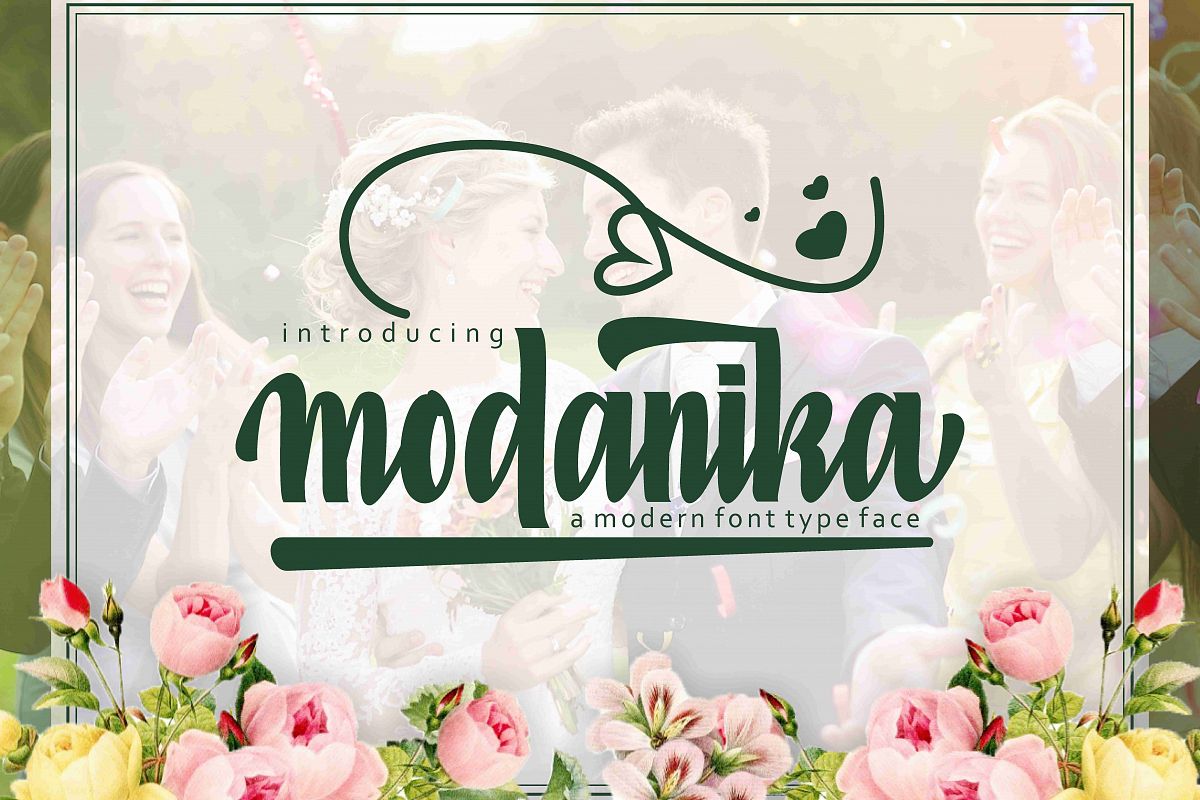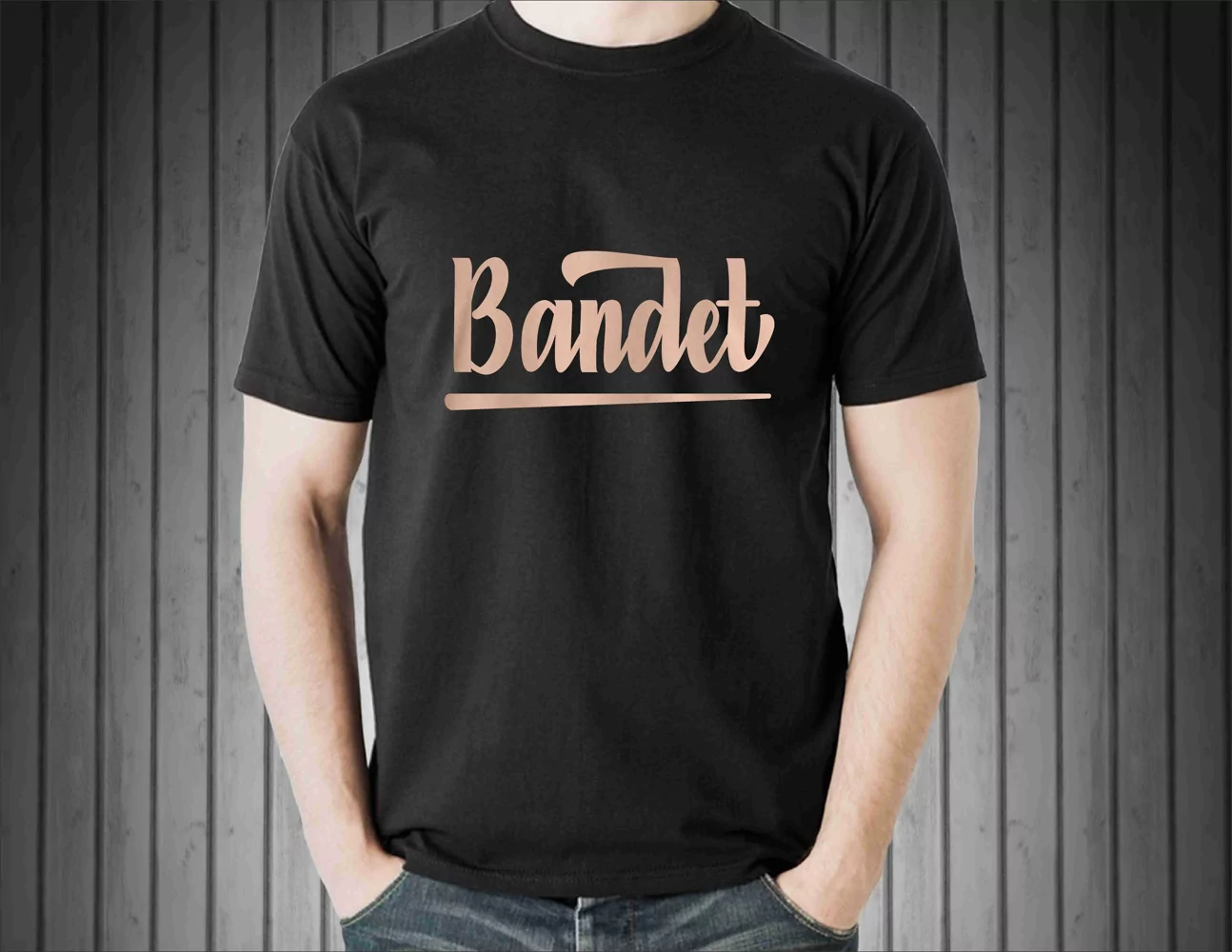
Modanika
Modanika new fresh & modern script with a
handmade calligraphy style, decorative characters and a dancing
baseline! So beautiful on invitation like greeting cards, branding
materials, business cards, quotes, posters, logo and more!!
The alternative
characters were divided into several Open Type features such as Swash,
Stylistic Sets, Stylistic Alternates, Contextual Alternates. The Open
Modanika :